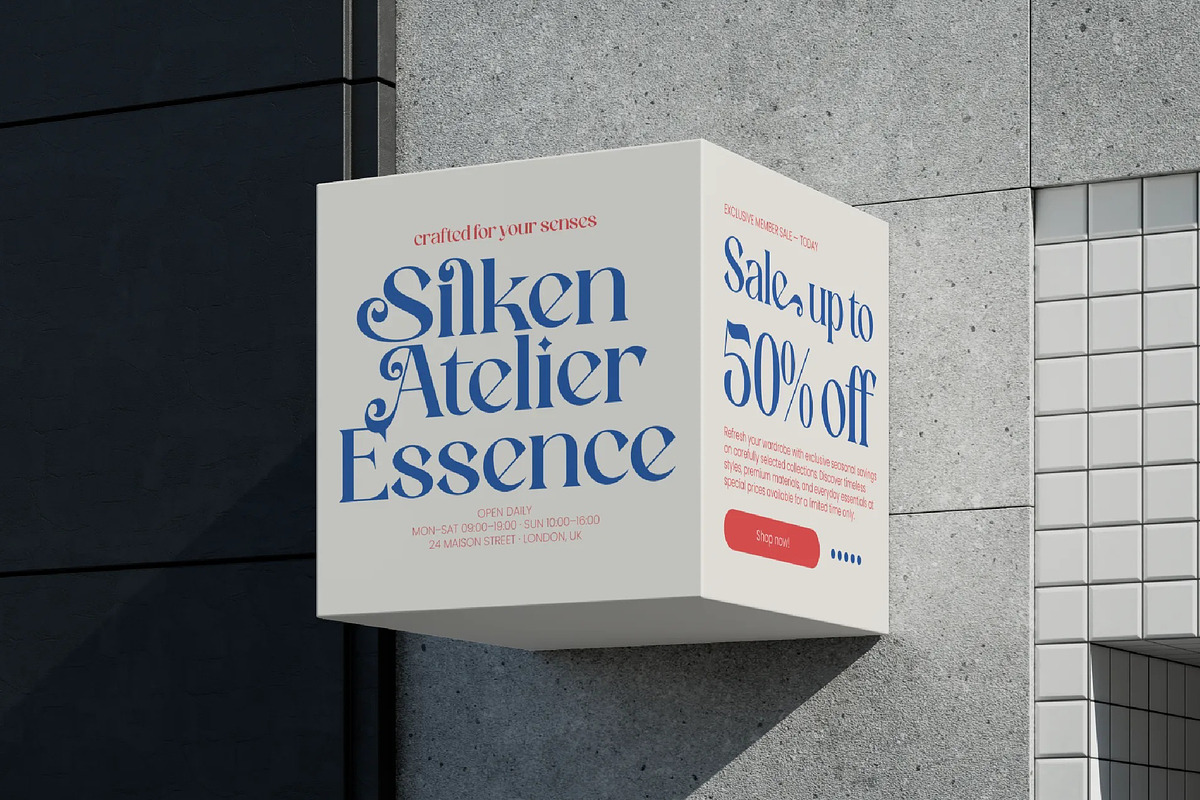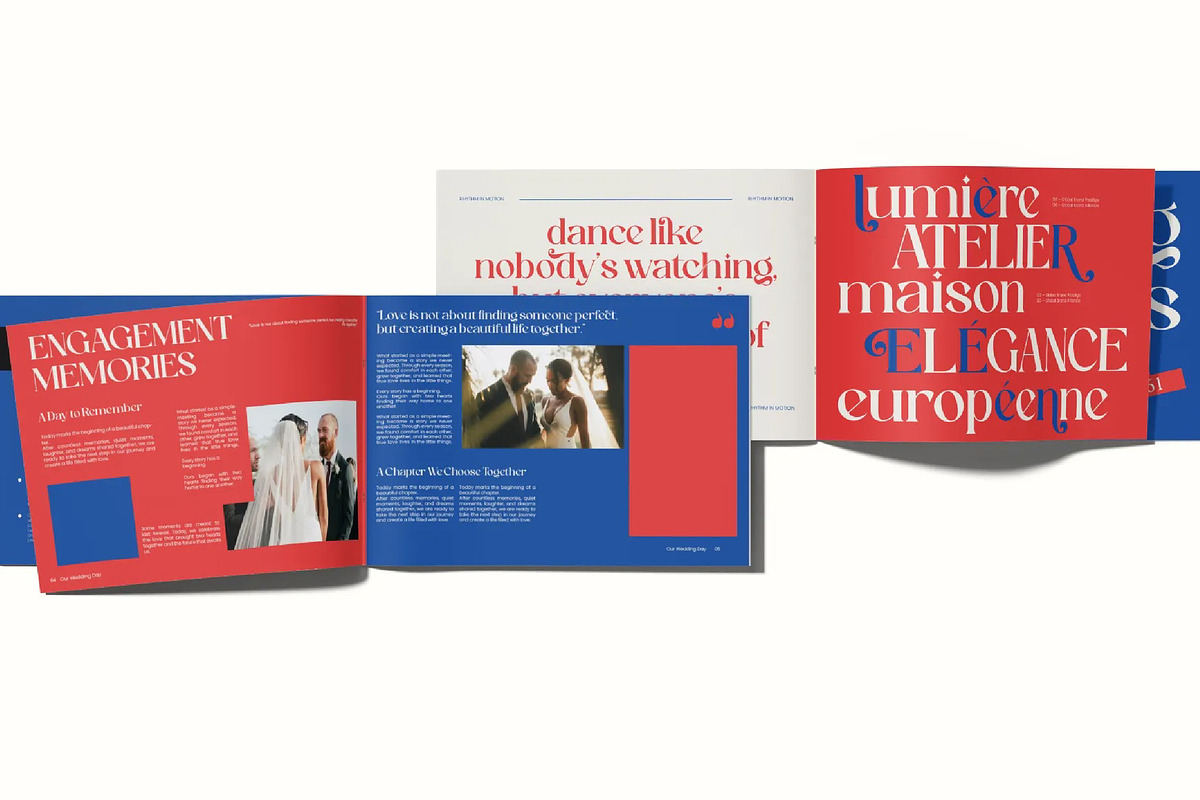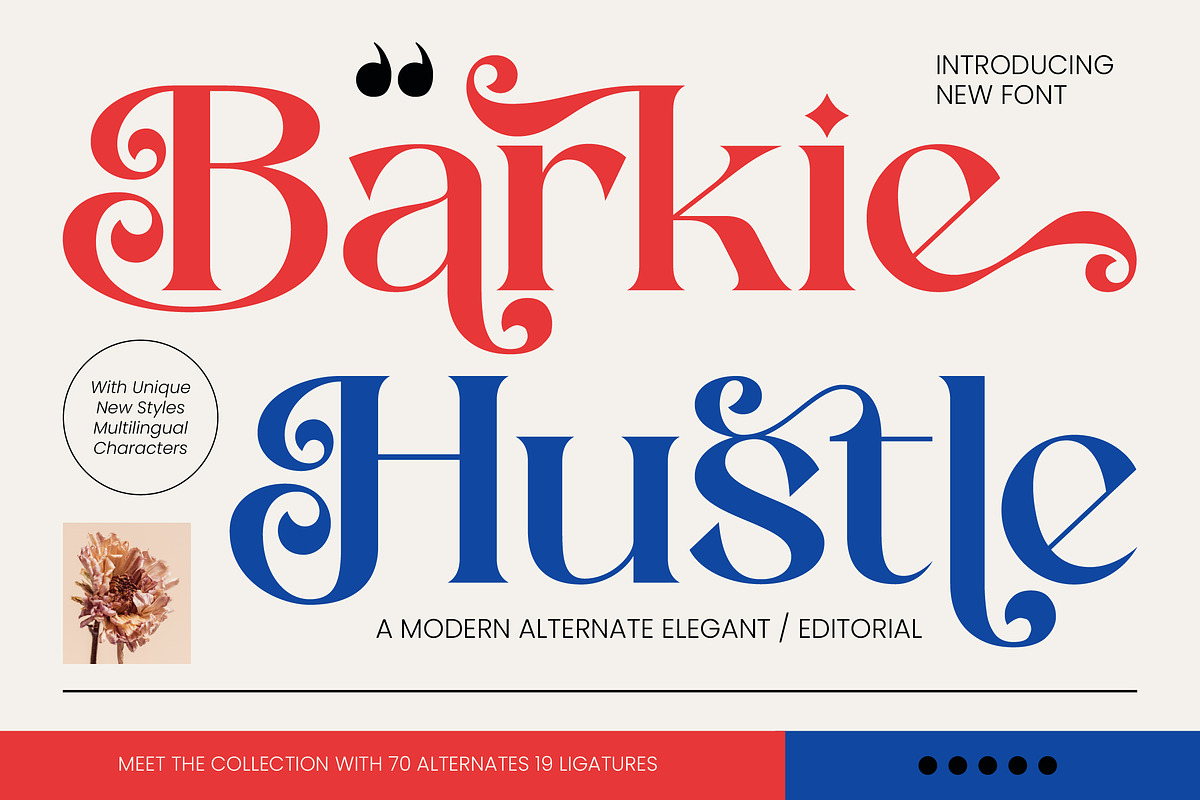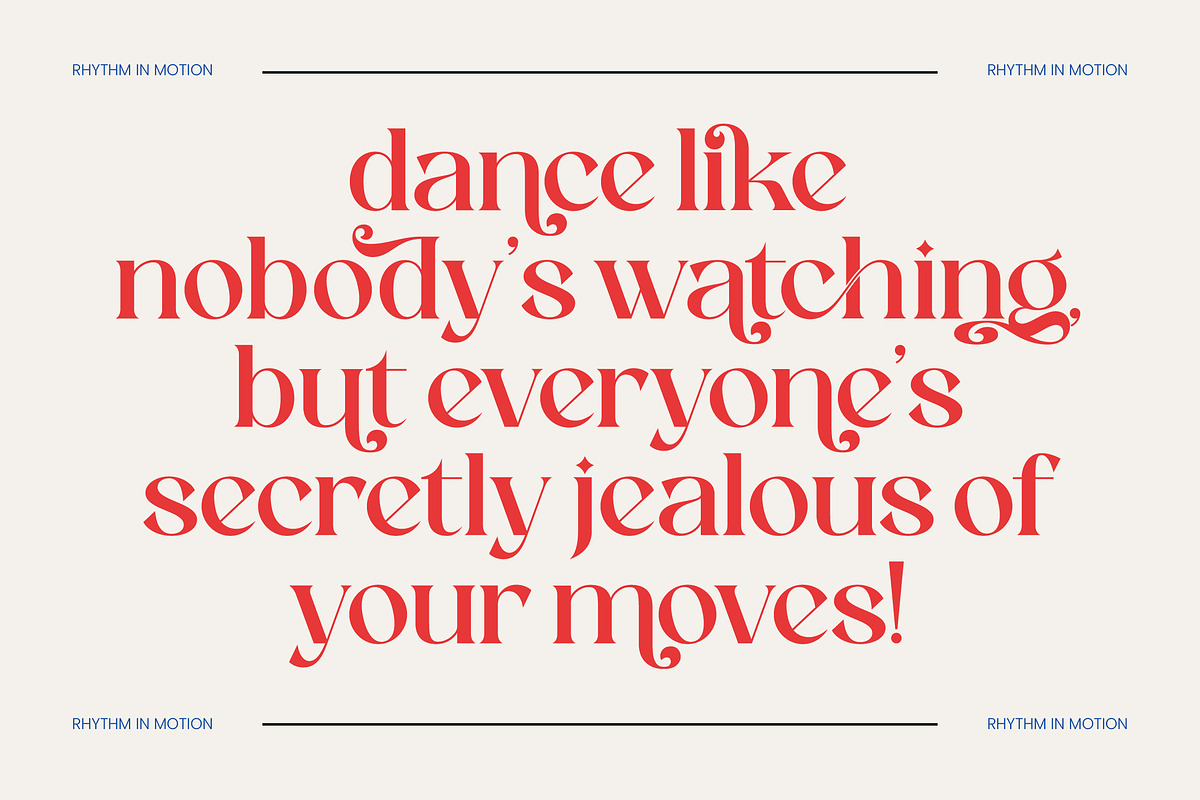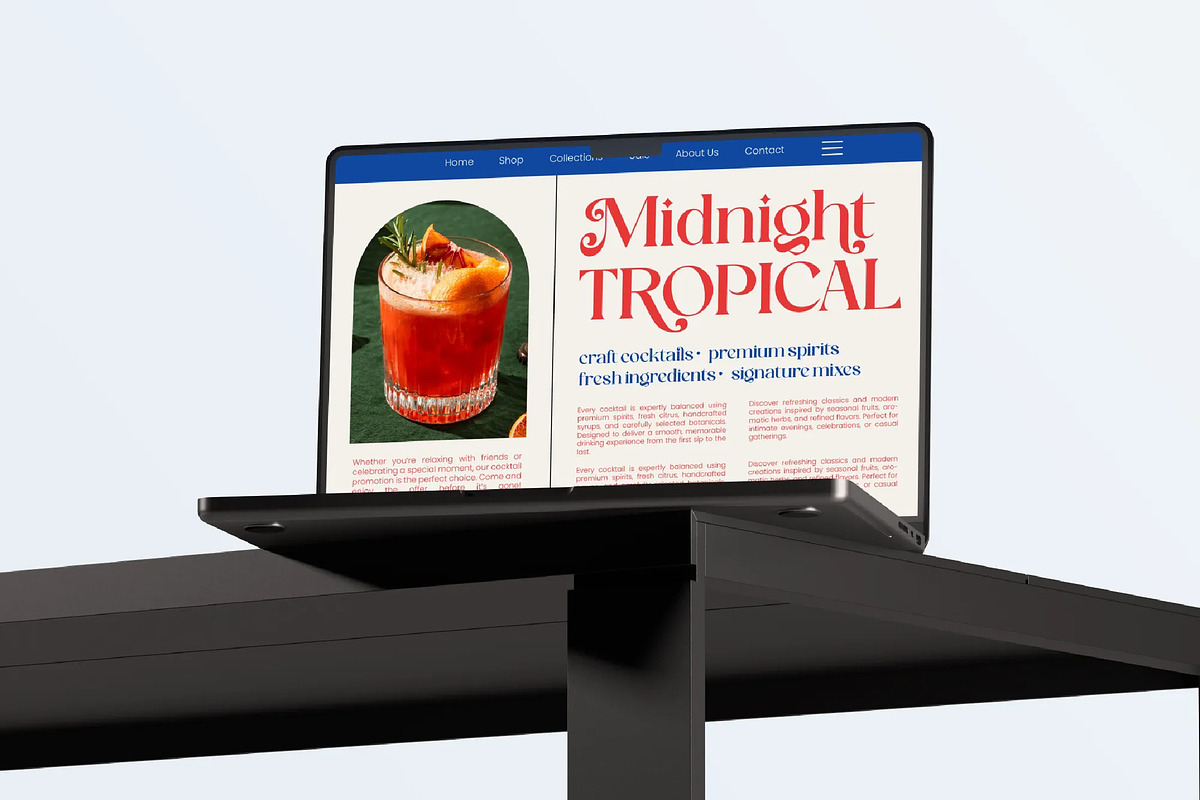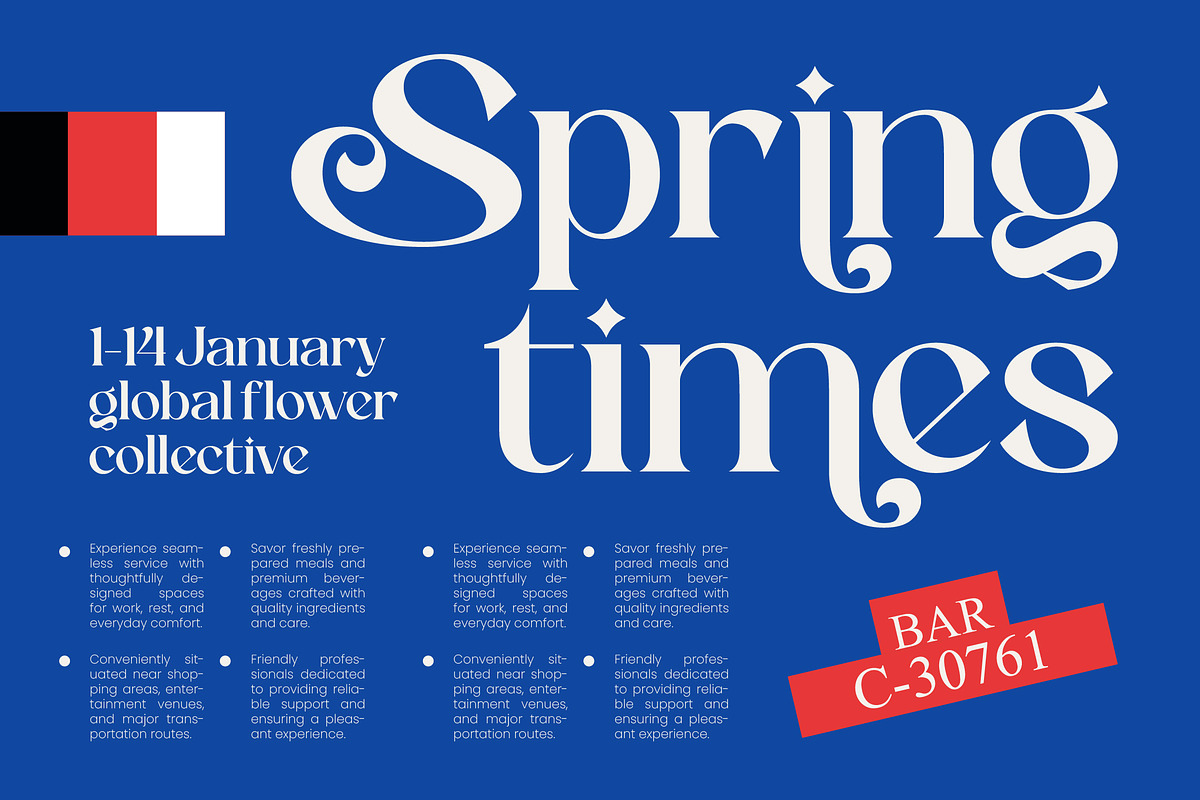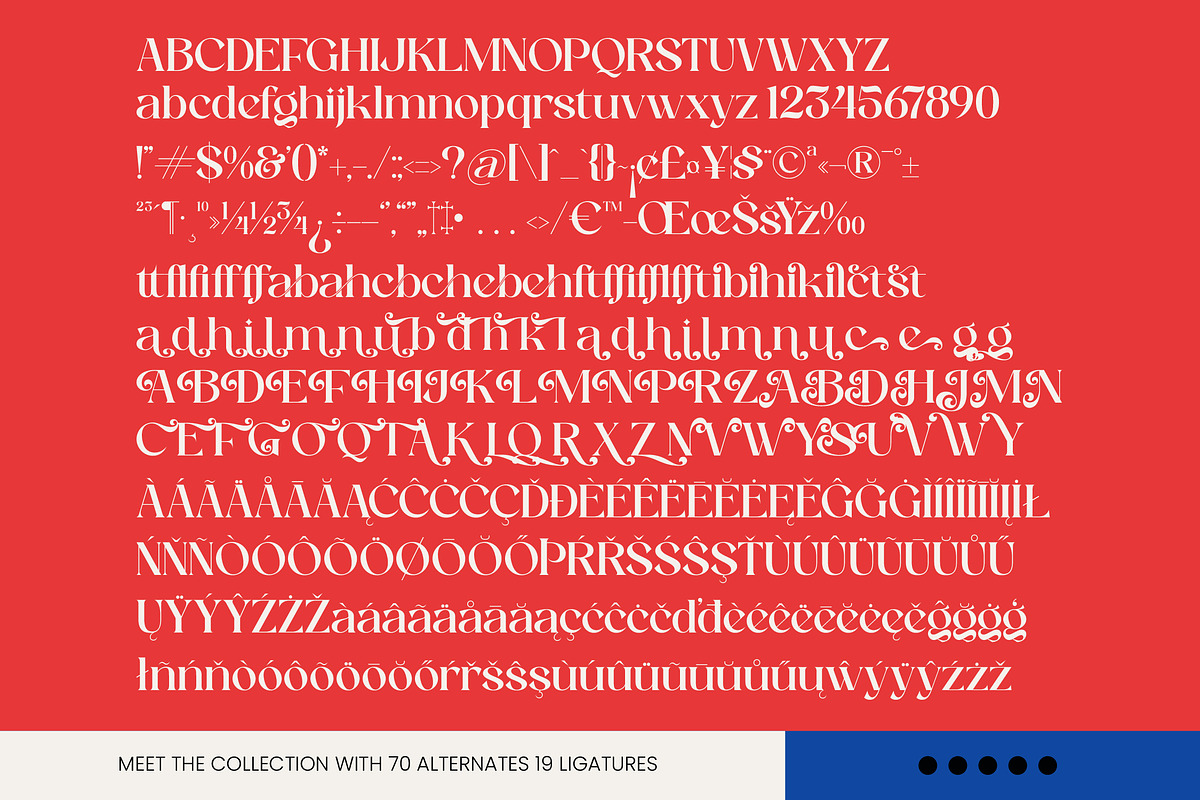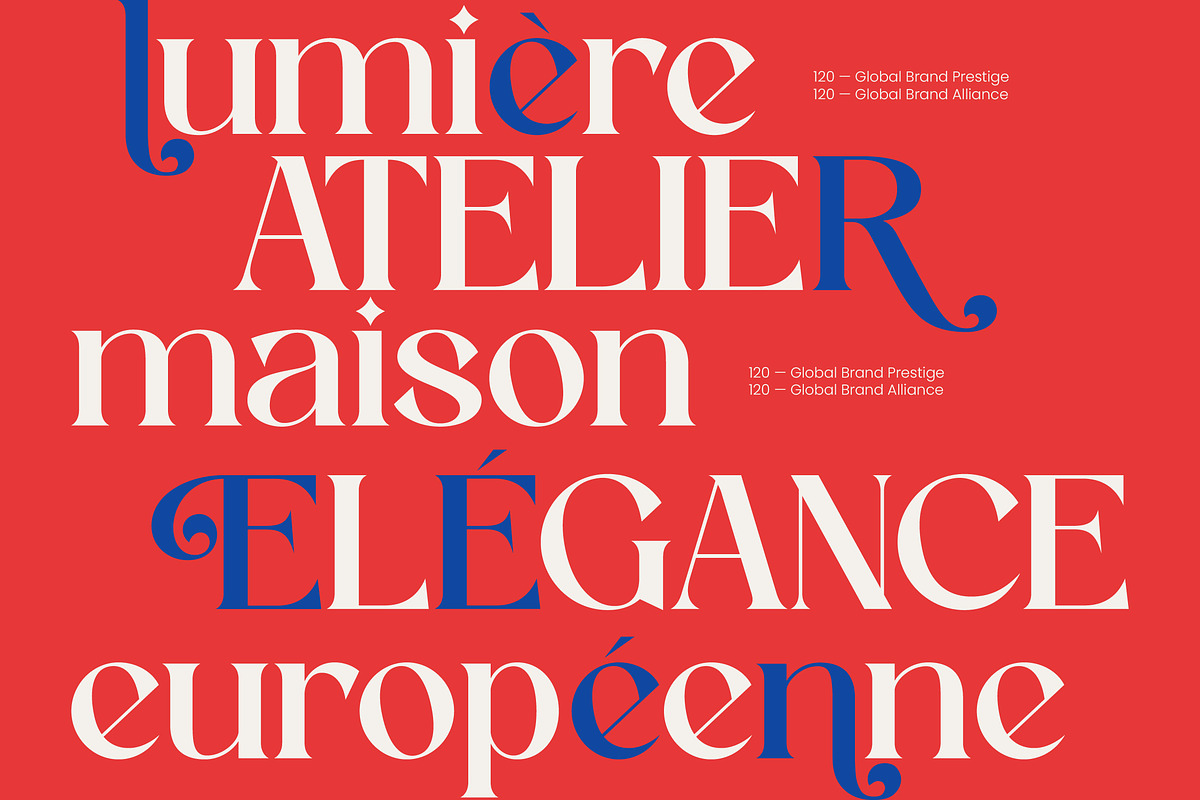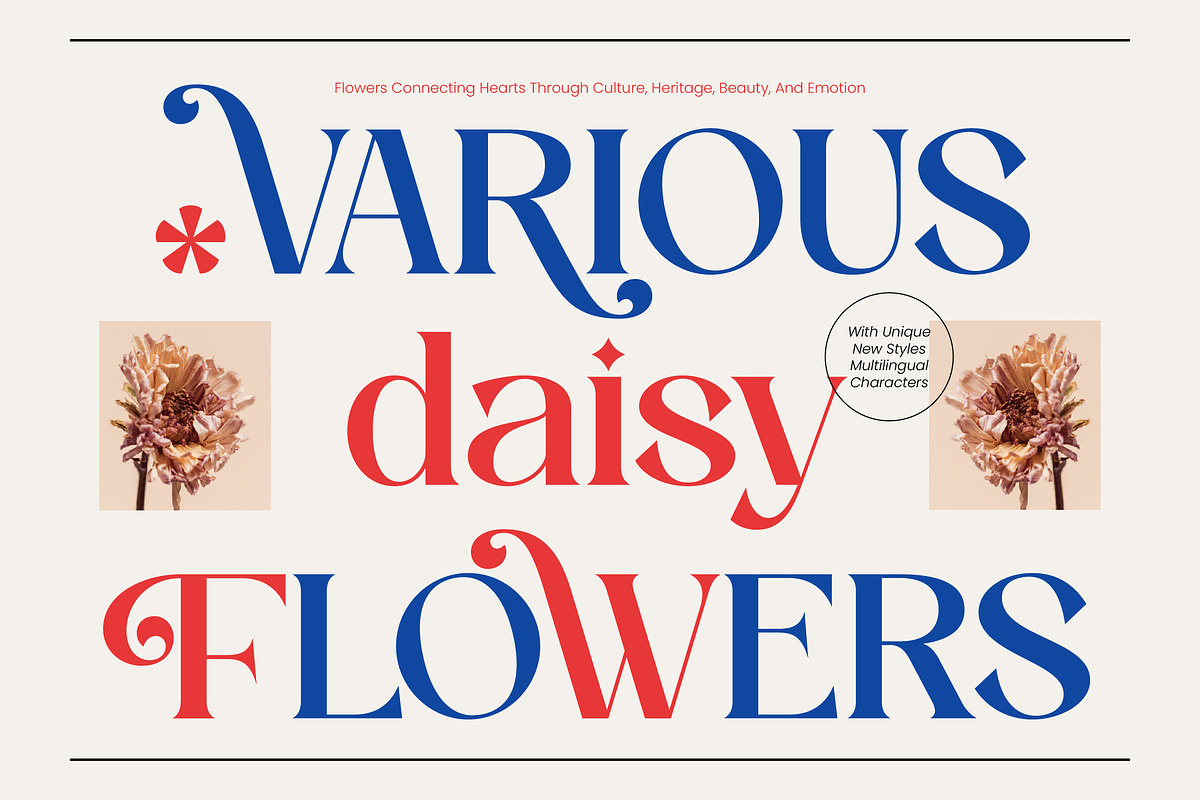
Barkie Hustle Modern Alternate
Barkie Hustle - Modern Alternate Elegant , Elevate your brand identity with a typeface that defines modern sophistication. Barkie Hustle - Modern Alternate Elegant is a meticulously crafted high-contrast serif designed to command attention while maintaining an air of understated luxury. Featuring an impressive library of over 70 alternates and 19 unique ligatures, this font offers unparalleled creative flexibility, allowing designers to transform standard layouts into bespoke typographic masterpieces.
Expand your creative horizons across borders and cultures with ease. With its extensive multilingual support, Barkie Hustle - Modern Alternate Elegant adapts seamlessly across global markets, making it incredibly versatile for international projects. This ensures that your brand communication remains consistent and impactful, providing a comprehensive global design solution for forward-thinking agencies and independent creators seeking to reach a wider audience.
Master the art of visual storytelling with a professional-grade tool built for high-impact results. This typeface is the perfect choice for luxury branding, high-end packaging, and editorial design. Whether you are developing prestige magazine headers, striking logo designs, or upscale invitation suites, Barkie Hustle - Modern Alternate Elegant is perfect for projects requiring a blend of professional grace and modern editorial flair.
Secure your competitive edge with a typographic asset that stands the test of time. Investing in Barkie Hustle - Modern Alternate Elegant means choosing superior craftsmanship and aesthetic excellence. It serves as a highly versatile asset for any designer looking to create compelling visual narratives that resonate with a high-end audience, making it an essential addition to any professional creative toolkit.